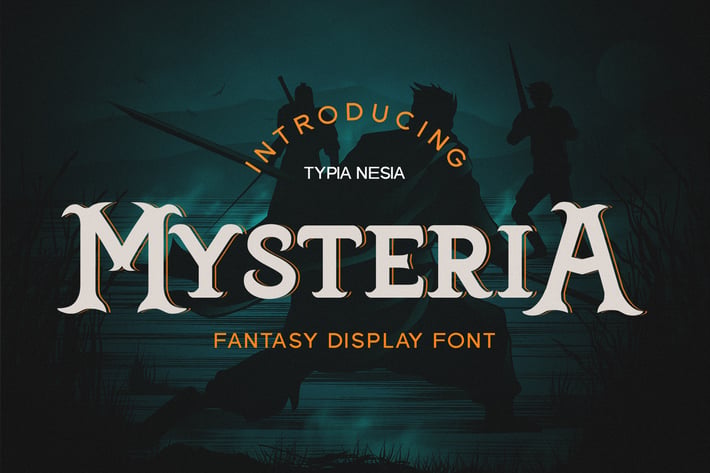
Mysteria - Game Font
Mysteria - Fantasy Game Font - Decorative Display Font
Mysteria font is perfect for your up coming projects. Such as logo branding, game, fantasy novel, movie, editorial design, stationery design, sport design, blog design, modern advertising design, card invitation, art quote, home decor, book/cover title, special events and any more.